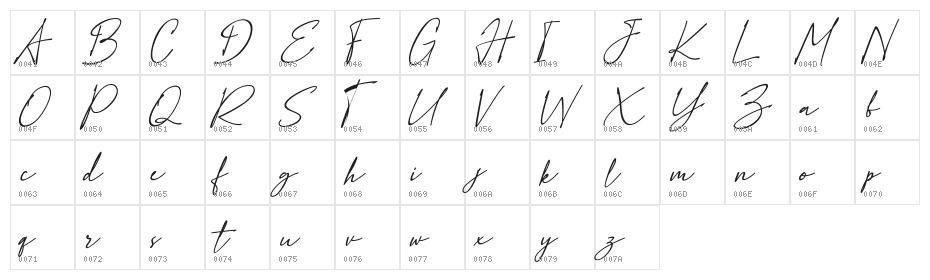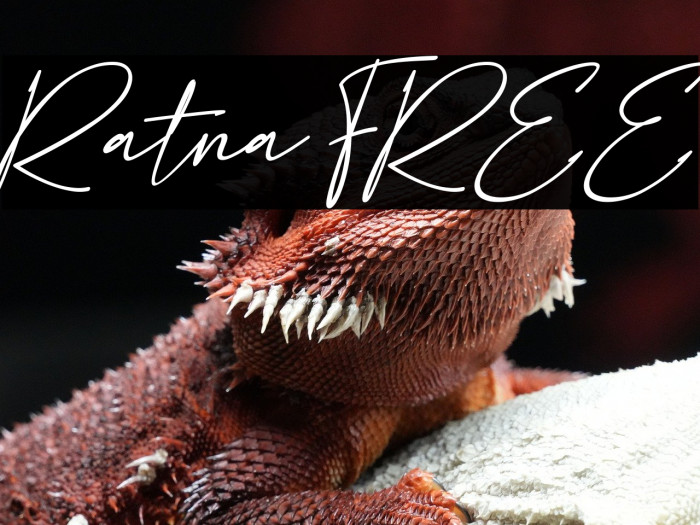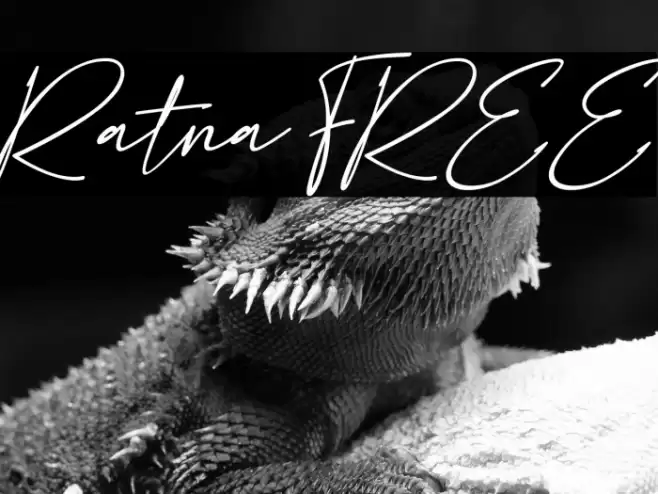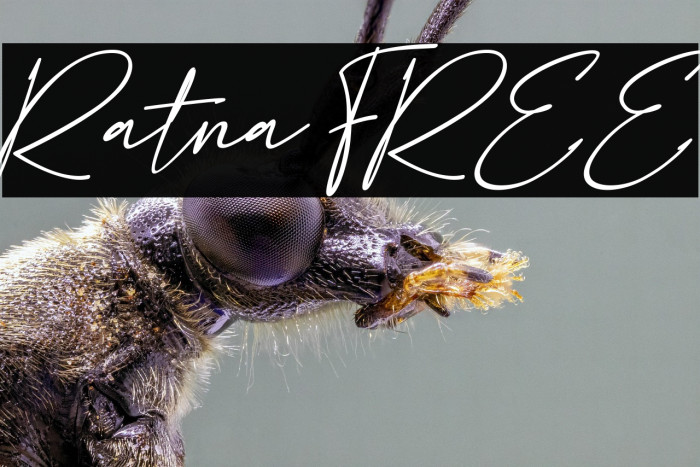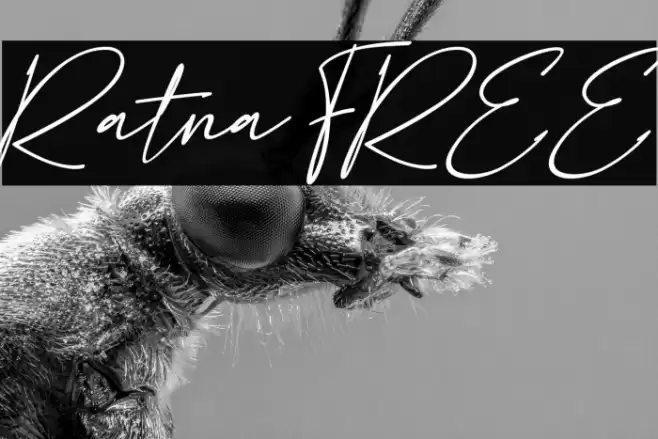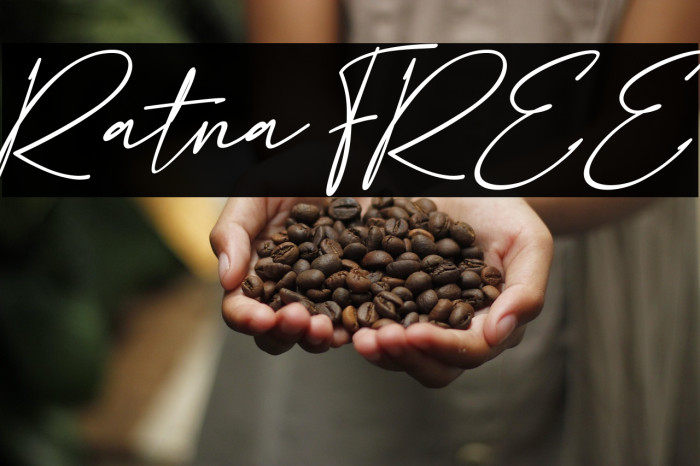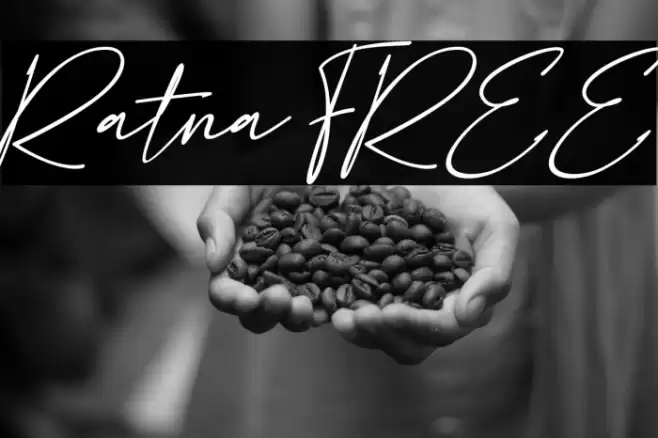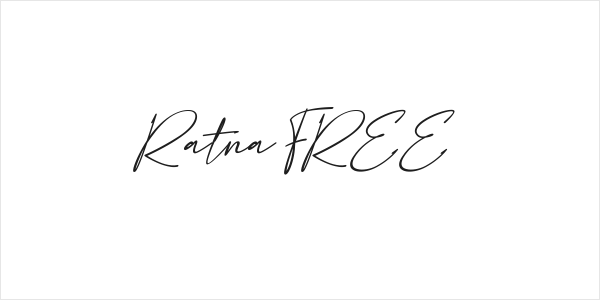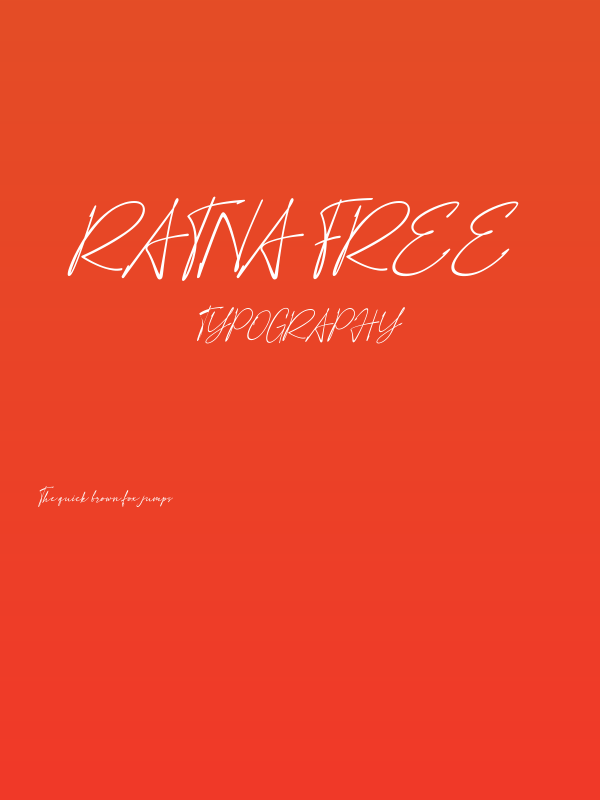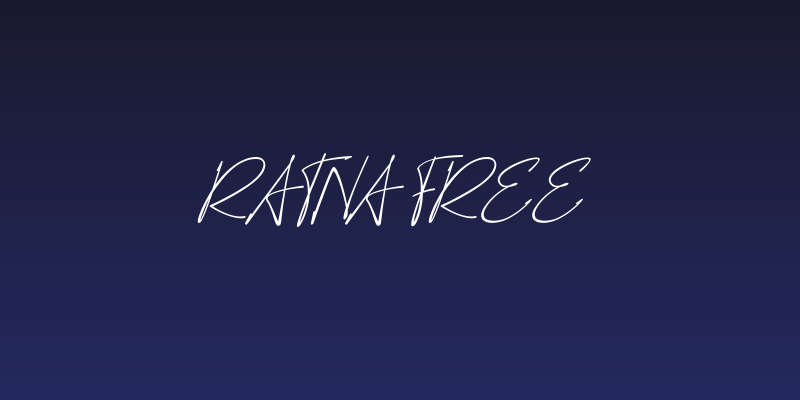
Ratna FREE Font
Ratna FREE Description
This font features a flowing, cursive style that exudes elegance and sophistication. The uppercase letters are tall and slender, with graceful loops and swashes that add a touch of flair. The lowercase letters are equally stylish, with smooth, connected strokes that create a seamless, handwritten appearance. The overall design is both modern and timeless, making it suitable for a variety of creative projects. The font maintains a consistent stroke width, offering a balanced and harmonious look. Its artistic nature makes it ideal for use in branding, invitations, and other design projects that require a personal touch.